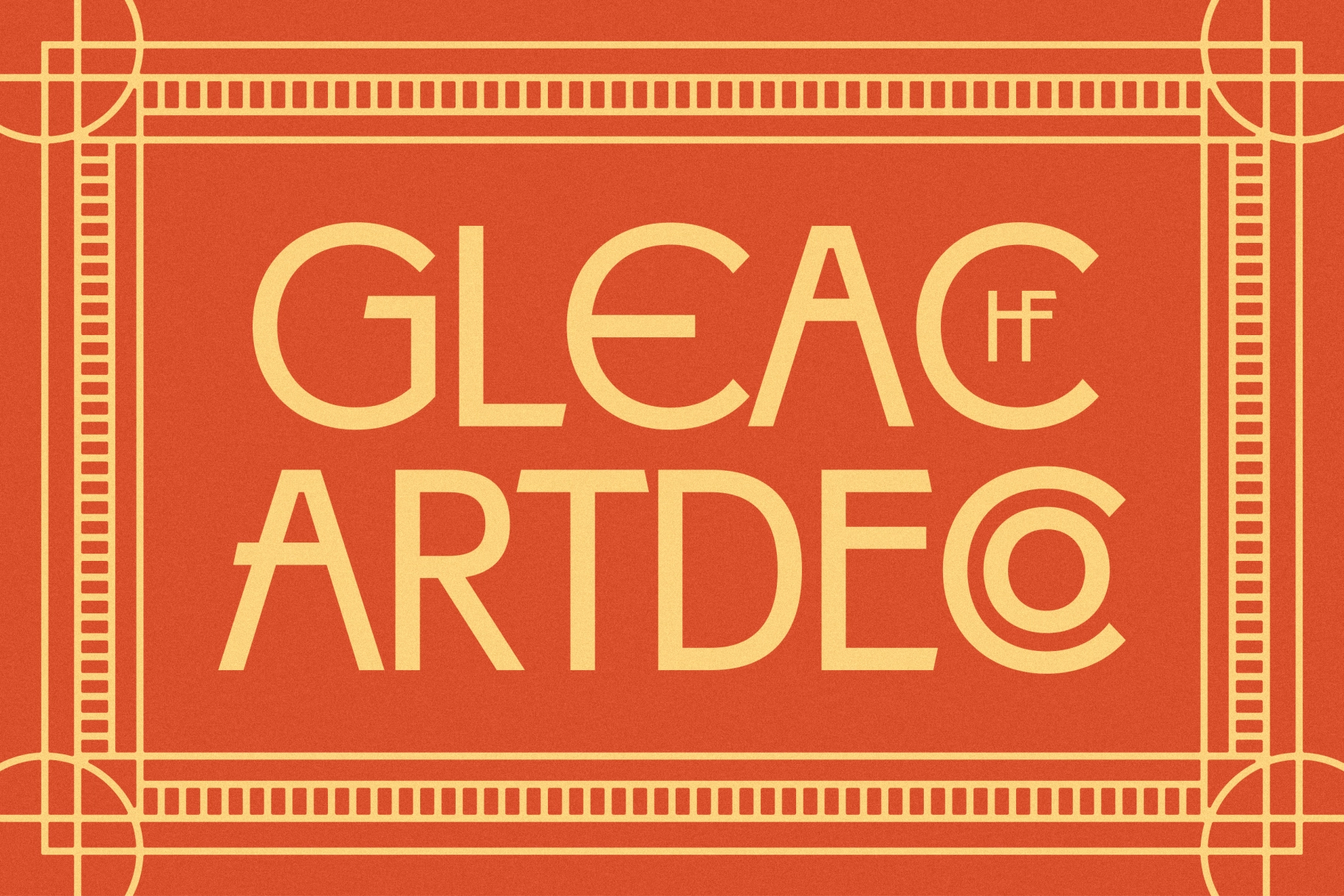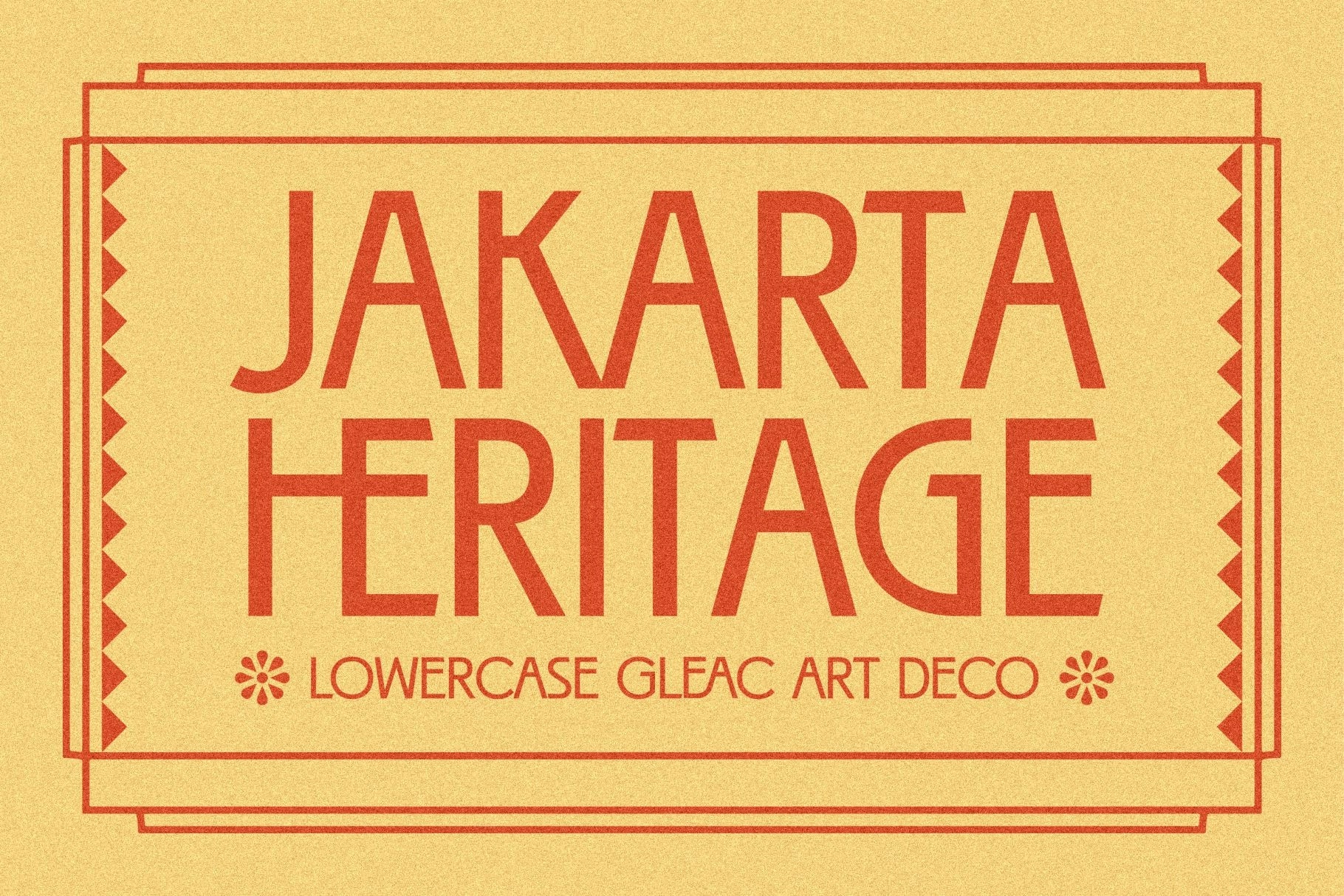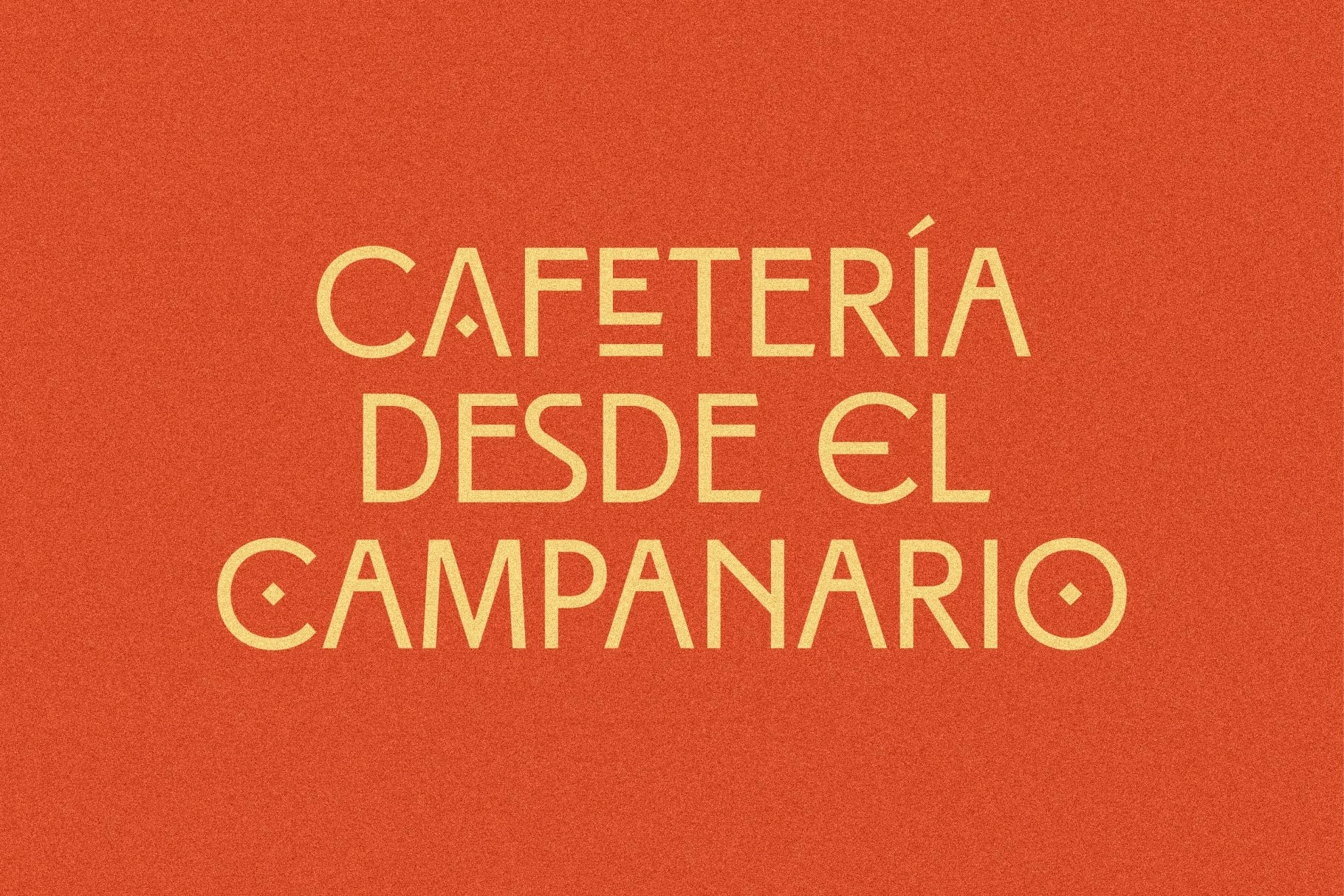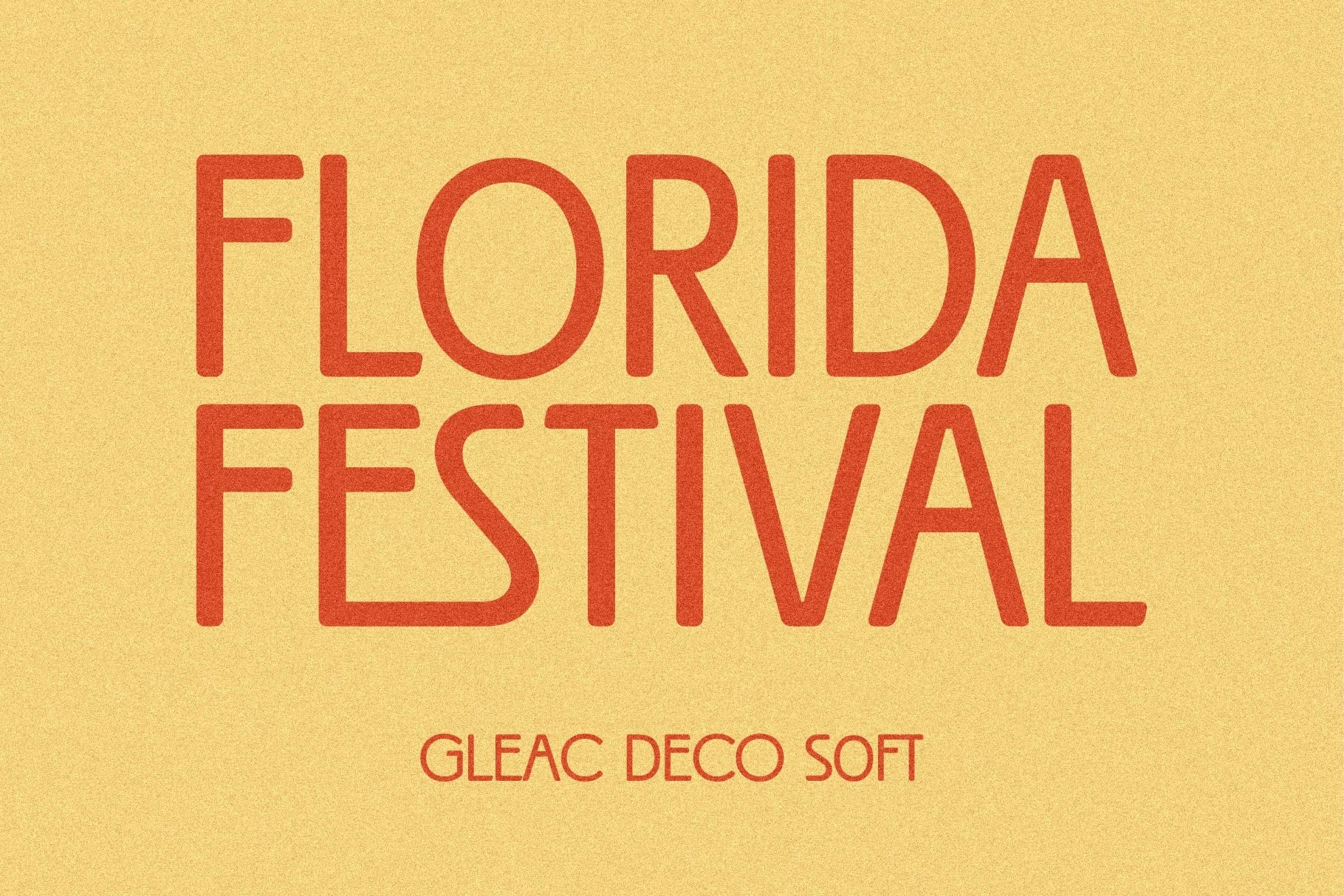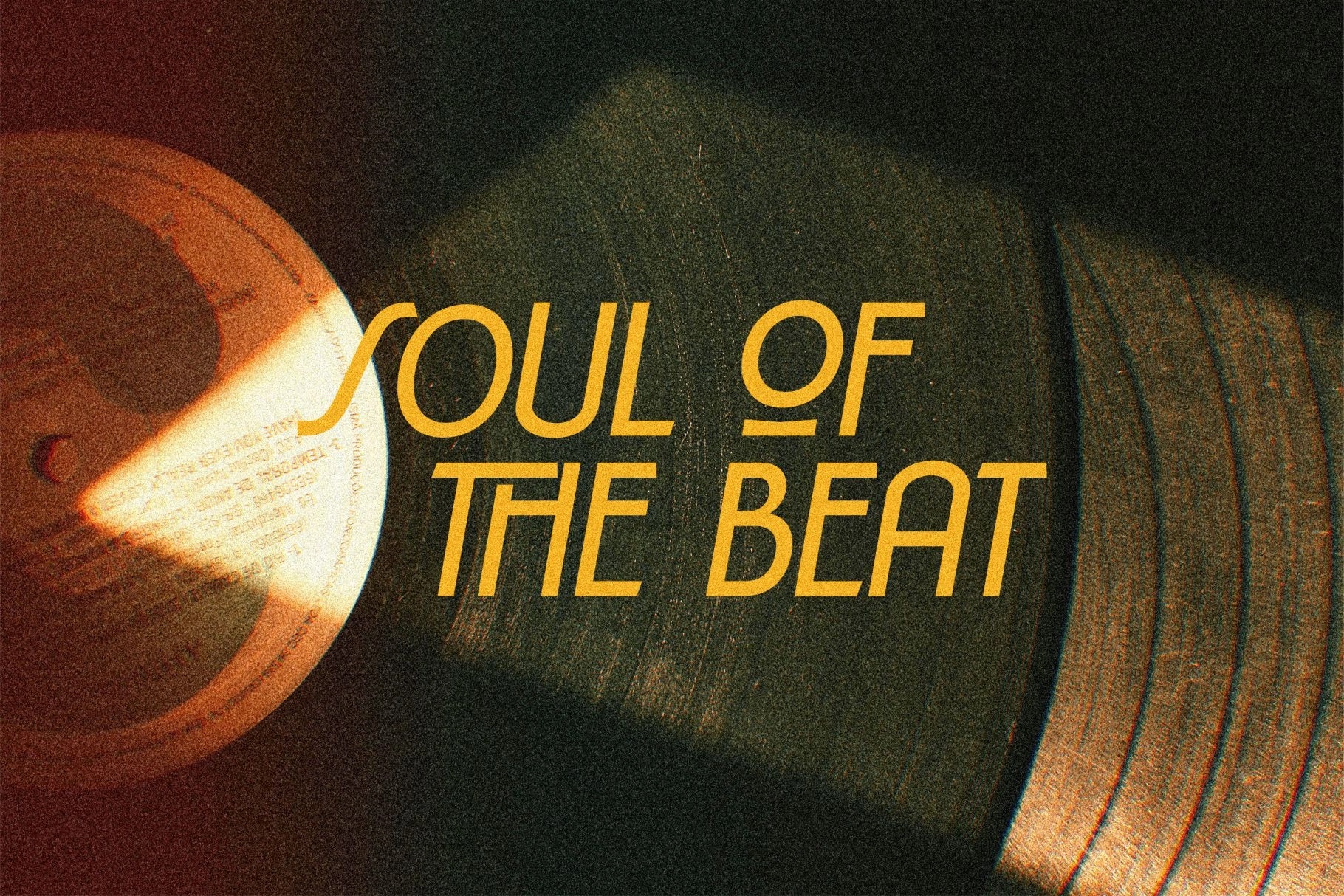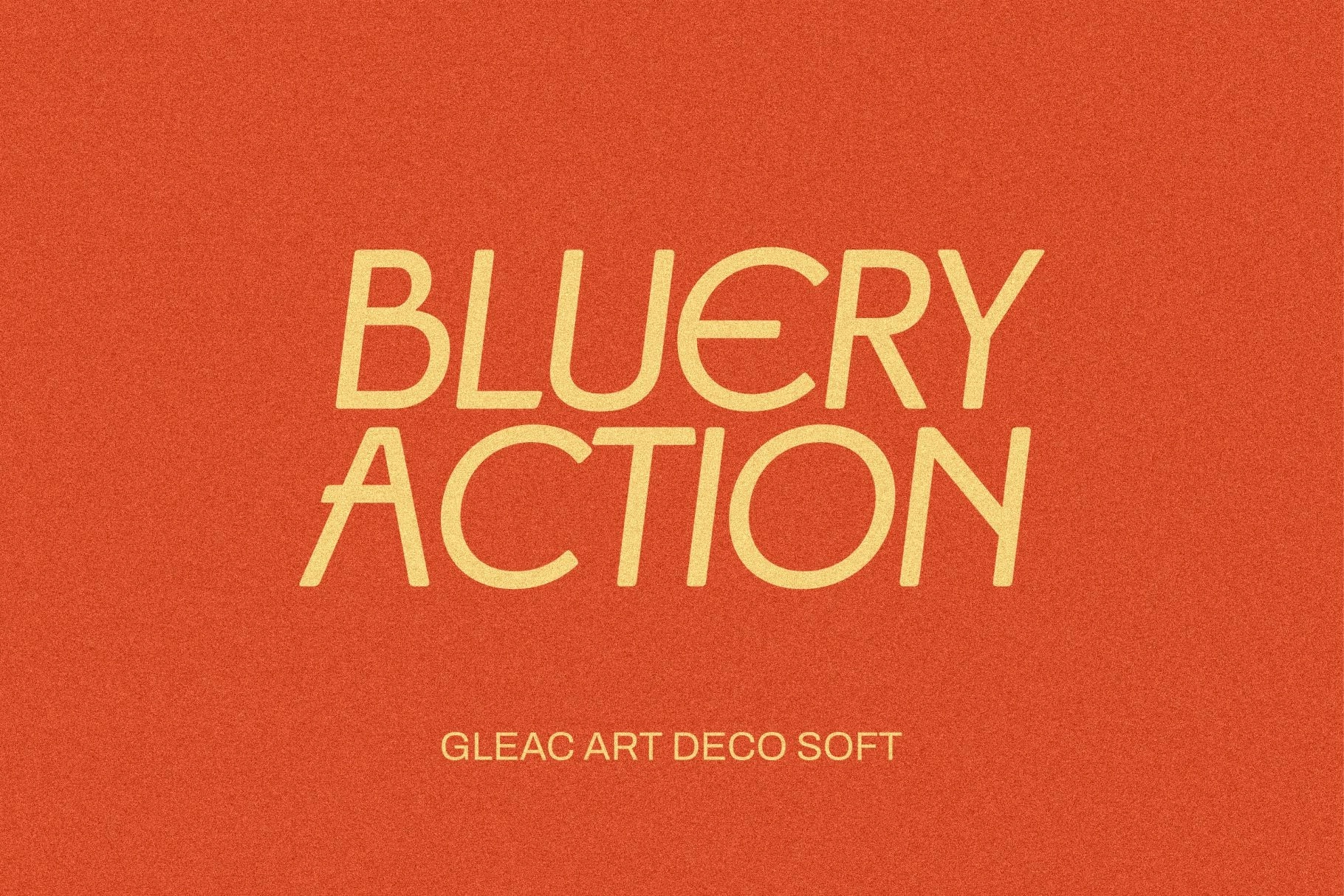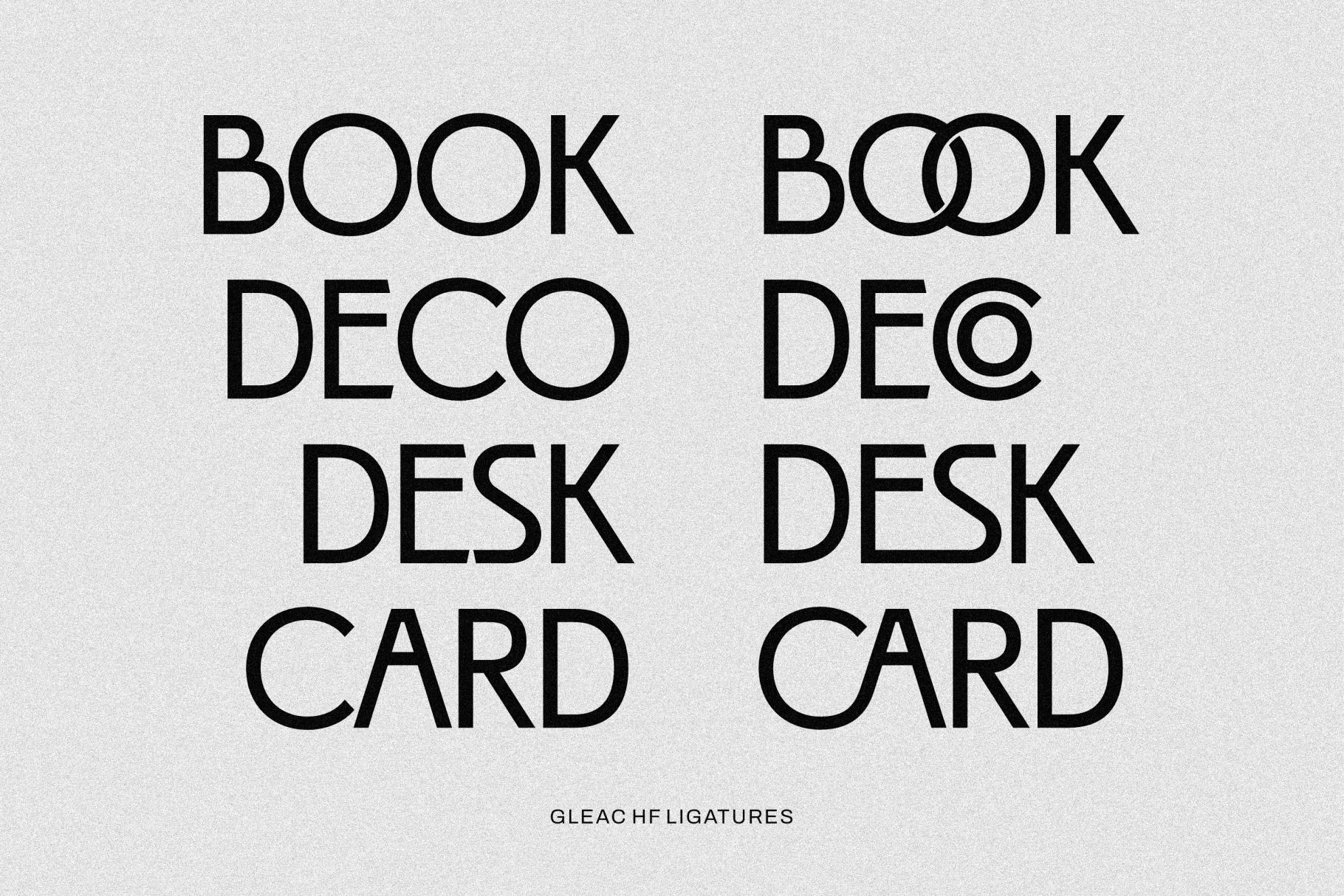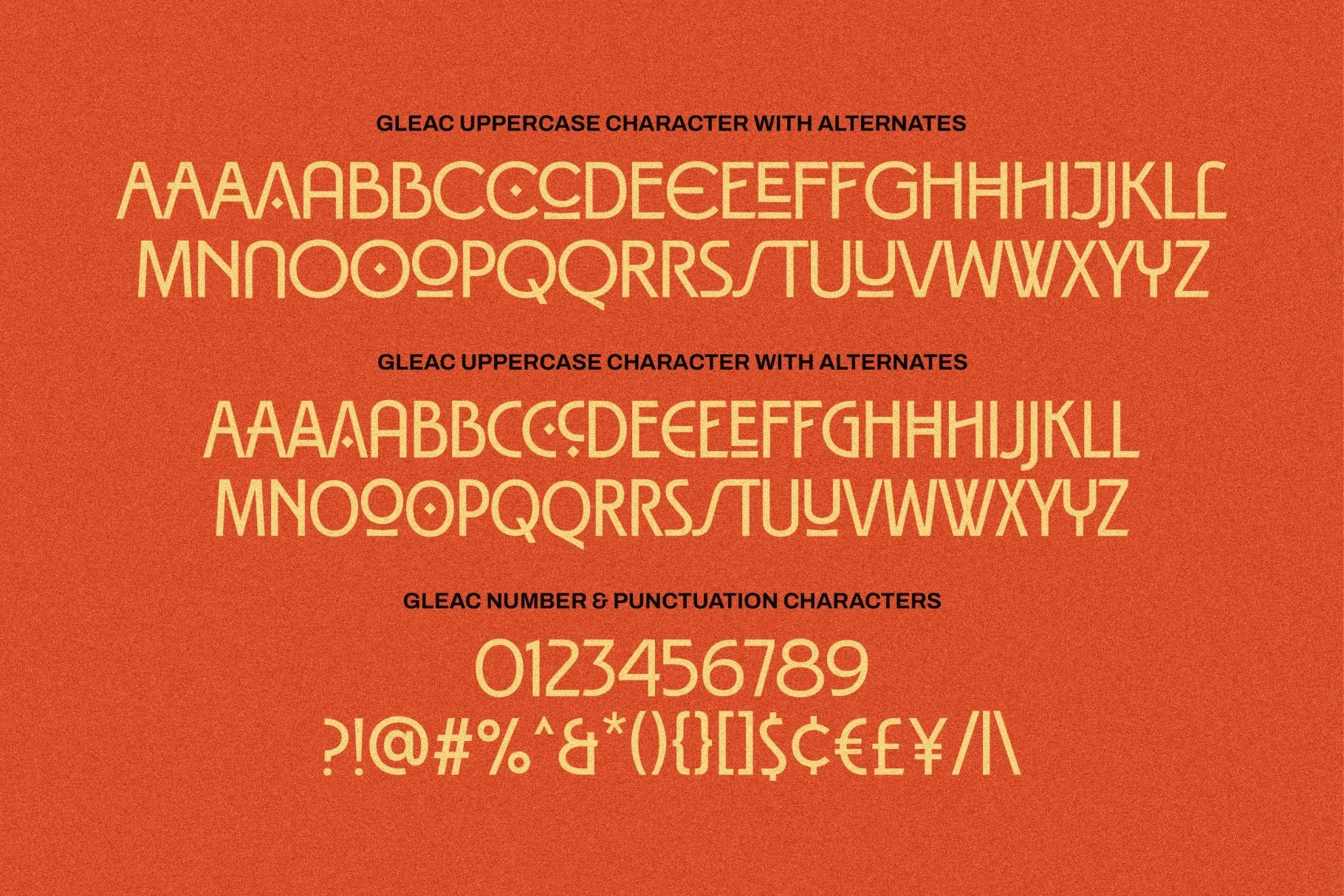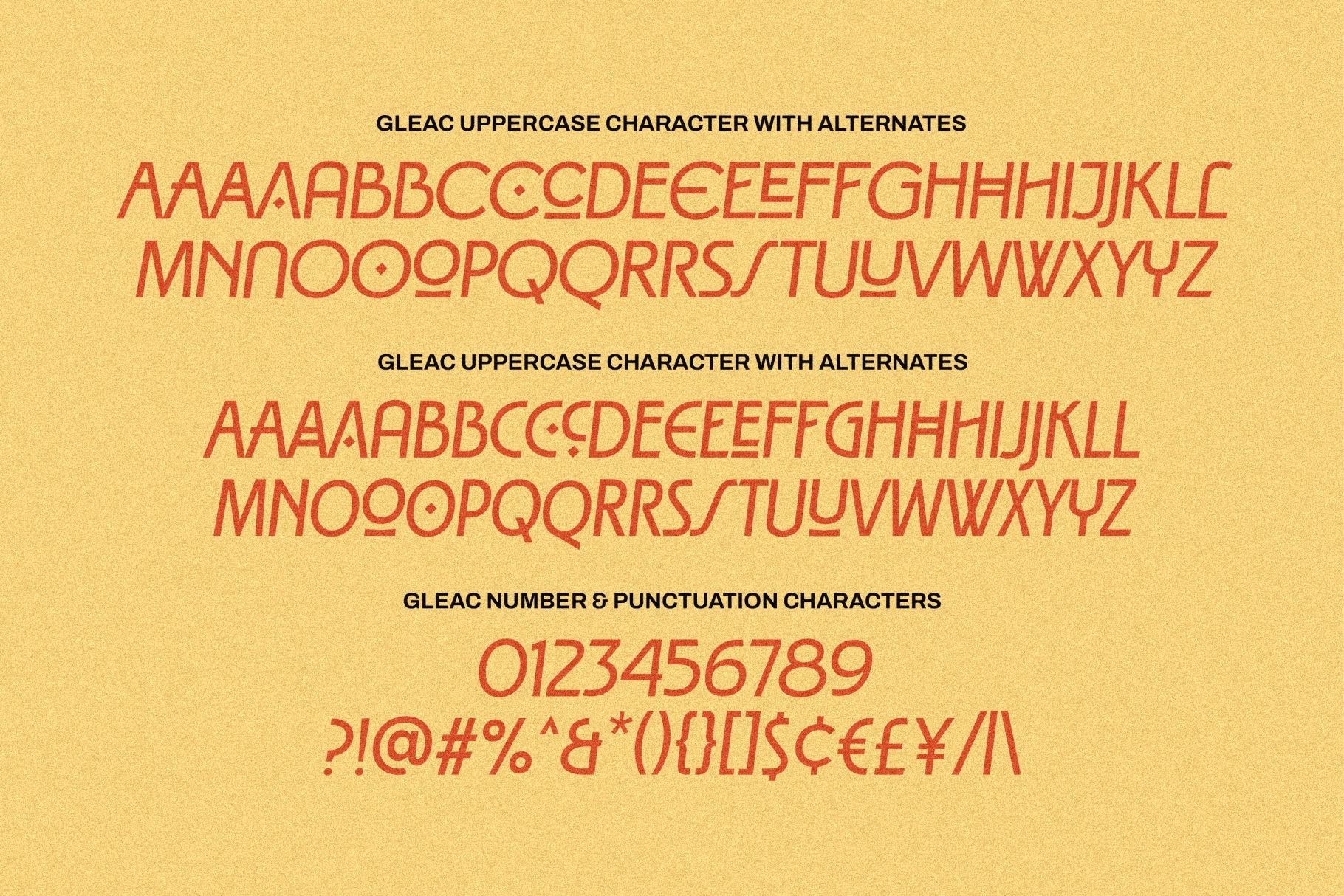
Gleac HF – Art Deco Display Font (4 Styles)
Gleac HF – Art Deco Display Font is a refined sans serif display typeface inspired by the elegance and glamour of the Art Deco era. With clean geometric lines and distinctive vintage character, Gleac adds sophistication and visual impact to logos, posters, headlines, and branding projects. Carefully crafted ligatures and stylistic alternates allow you to create custom typography compositions that truly stand out.
Featuring a glyph set of 450+ characters with multilingual support, this font is designed for both aesthetic appeal and functional versatility. Perfect for promotional flyers, brochures, cover titles, advertising campaigns, and luxury-themed designs, Gleac brings timeless style and modern flexibility to your workflow. Available in OTF, TTF, WOFF, and WOFF2 formats, it integrates seamlessly into both print and digital projects, helping you create bold, elegant, and memorable designs.
• Uppercase and Lowercase
• 4 style includes (Regular, Soft, Italic, Italic Soft)
• Alternartes
• Number
• Punctuation